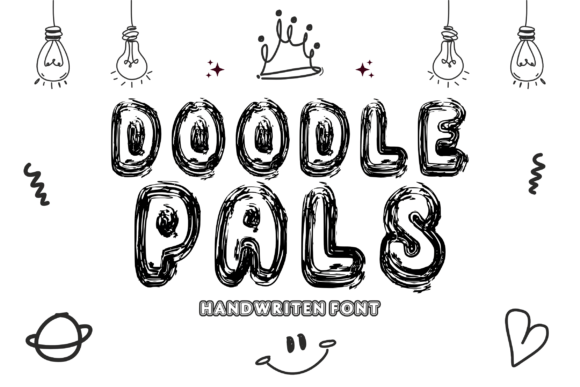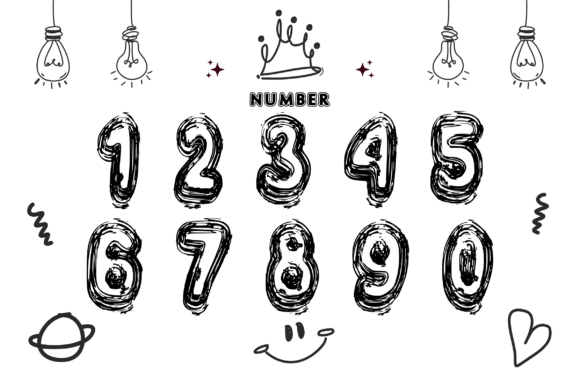
The Art of Imperfection: Unlocking the Potential of Doodlepals Regular Font
Remember the joy of scribbling with markers as a child? The feeling of watching bold lines and vibrant colors come to life on paper? For designers, capturing that same carefree spirit in their work can be a challenge. But what if you could harness that energy and translate it into a font that screams fun and playfulness? Enter Doodlepals Regular Font, a hand-drawn bubble/marker display font designed to add a dash of whimsy to your designs.
This ultra-bold font is not just for kids; it’s a powerful tool for designers looking to create attention-grabbing headlines and logos that pop. With its big, inky presence and rounded forms, Doodlepals Regular Font is the perfect choice for projects that require a lively, playful rhythm. Whether you’re working on a children’s book, a marketing campaign, or a social media graphic, this font is sure to bring a smile to your audience’s faces.
- Font Family: Doodlepals Regular, a playful and whimsical font.
- Unique Characteristics: Features hand-drawn, doodle-like letterforms with subtle imperfections and texture.
- Font Style: A single font style, Regular, with no bold or italic variations.
Doodlepals Regular Font Review
As a designer, I’ve had the chance to work with Doodlepals Regular Font, and I must say it’s a delightful addition to any design project. Here are some things that stand out to me: ✨
- Unique character: Doodlepals Regular Font has a distinct, playful feel that adds a touch of whimsy to any text. It’s perfect for projects that need a bit of personality.
- Legibility: Despite its hand-drawn appearance, the font is surprisingly legible, making it suitable for body text and even headlines.
- Flexibility: Doodlepals Regular Font comes in a range of weights and styles, allowing you to customize your design to suit your needs.
- Readability in small sizes: While the font is legible in larger sizes, it can become difficult to read in smaller sizes, especially in body text.
- Limited line spacing: The font’s line spacing can become quite tight, making it challenging to create a clean, balanced design.
Overall, I think Doodlepals Regular Font is a great choice for projects that need a touch of creativity and personality. While it may have some limitations, its unique character and flexibility make it a valuable addition to any designer’s toolkit.
The Doodlepals Regular Font is perfect for creating playful and whimsical designs. Some common use cases include:
- Handwritten-style logos and branding
For the best results, use the Doodlepals Regular Font in conjunction with bold and colorful graphics to create a fun and lively atmosphere.